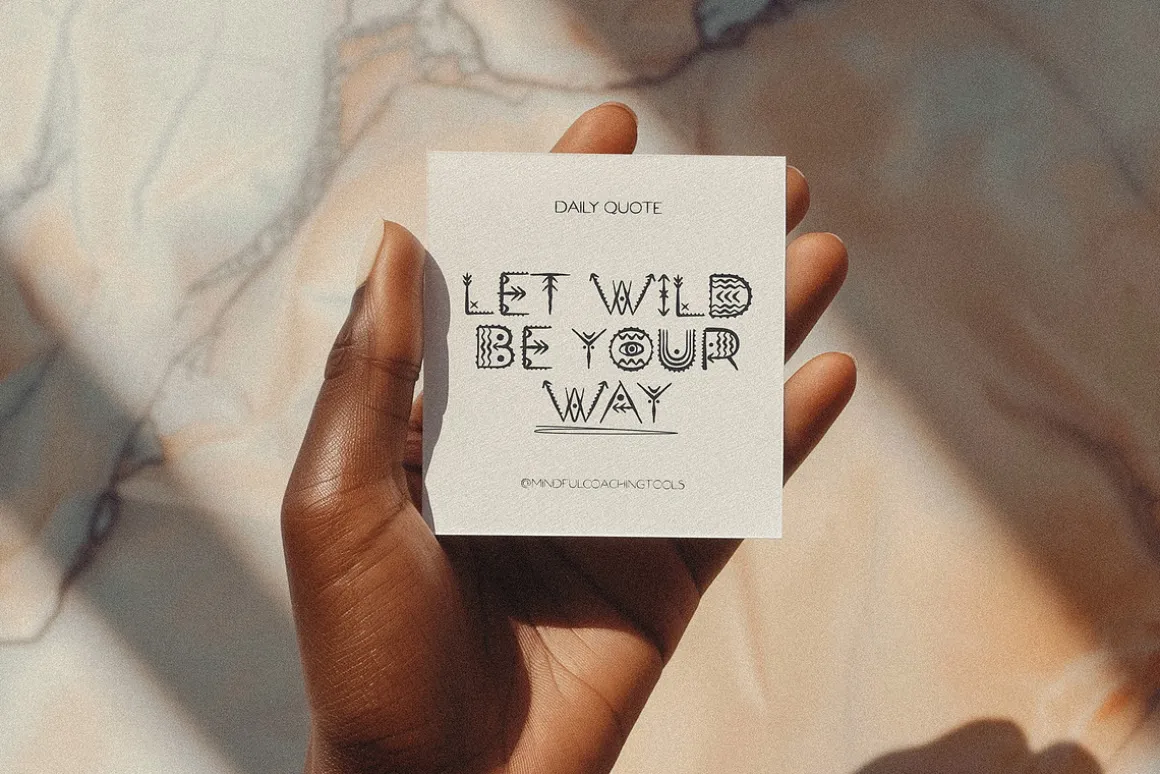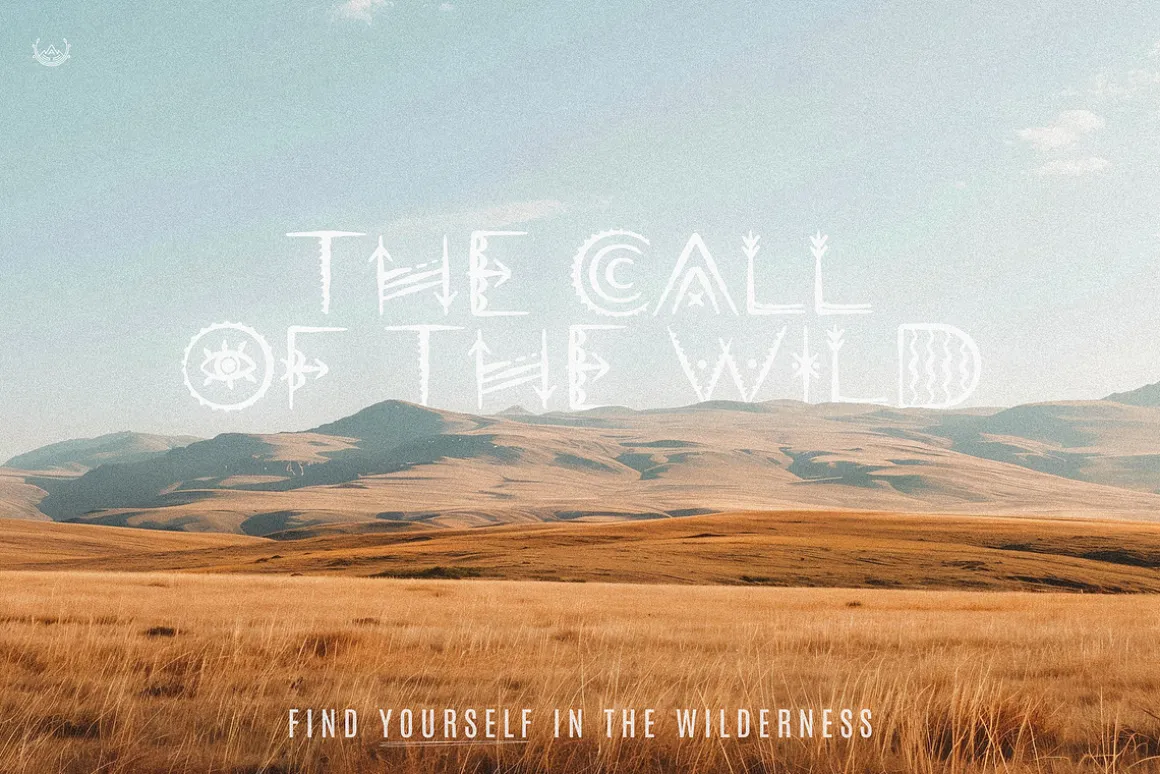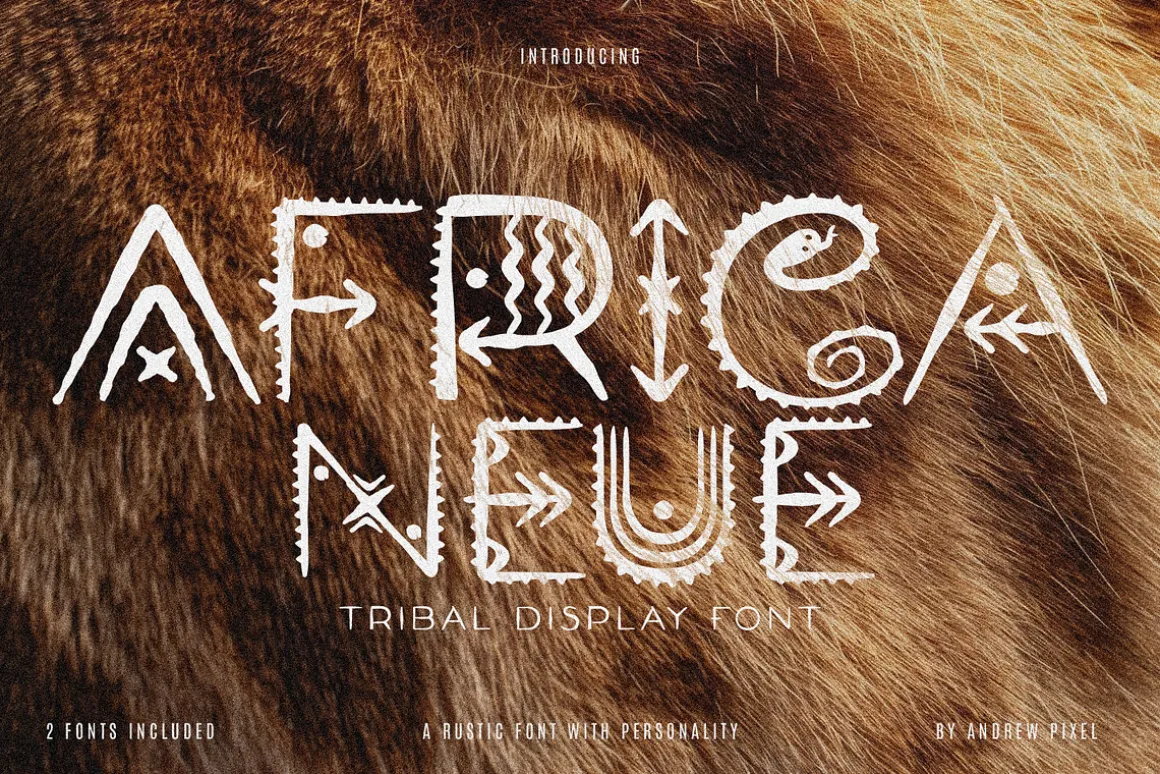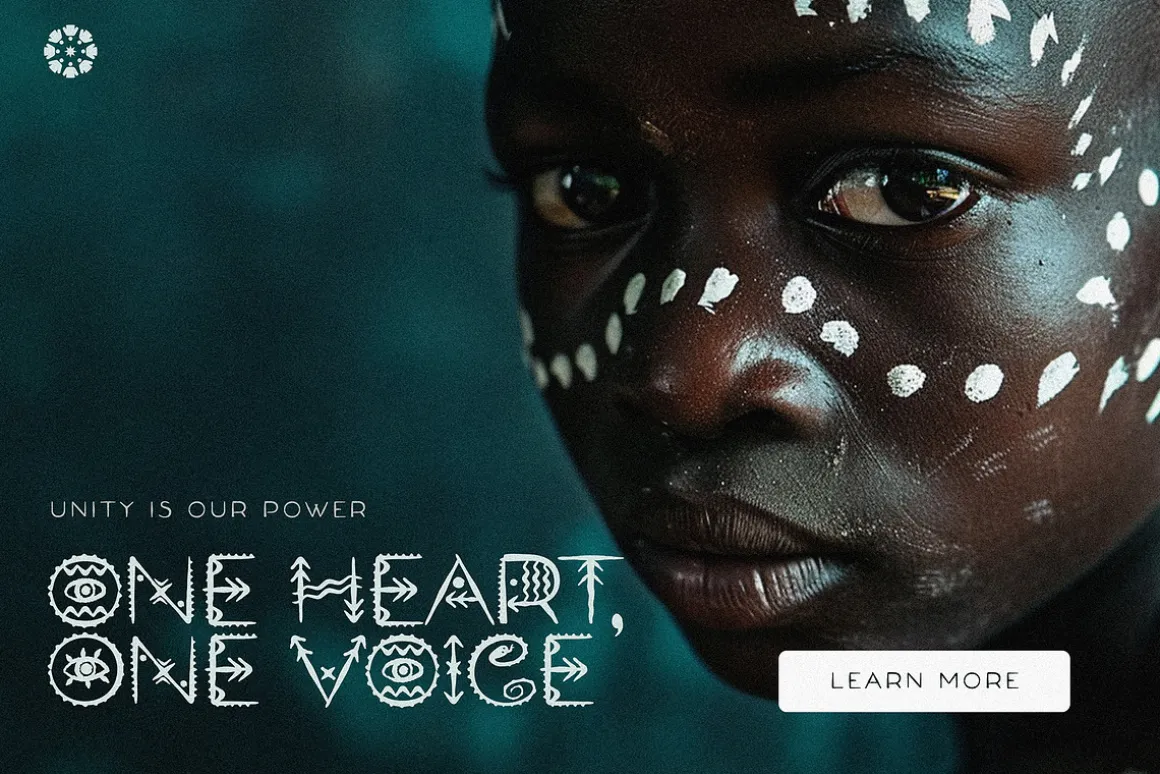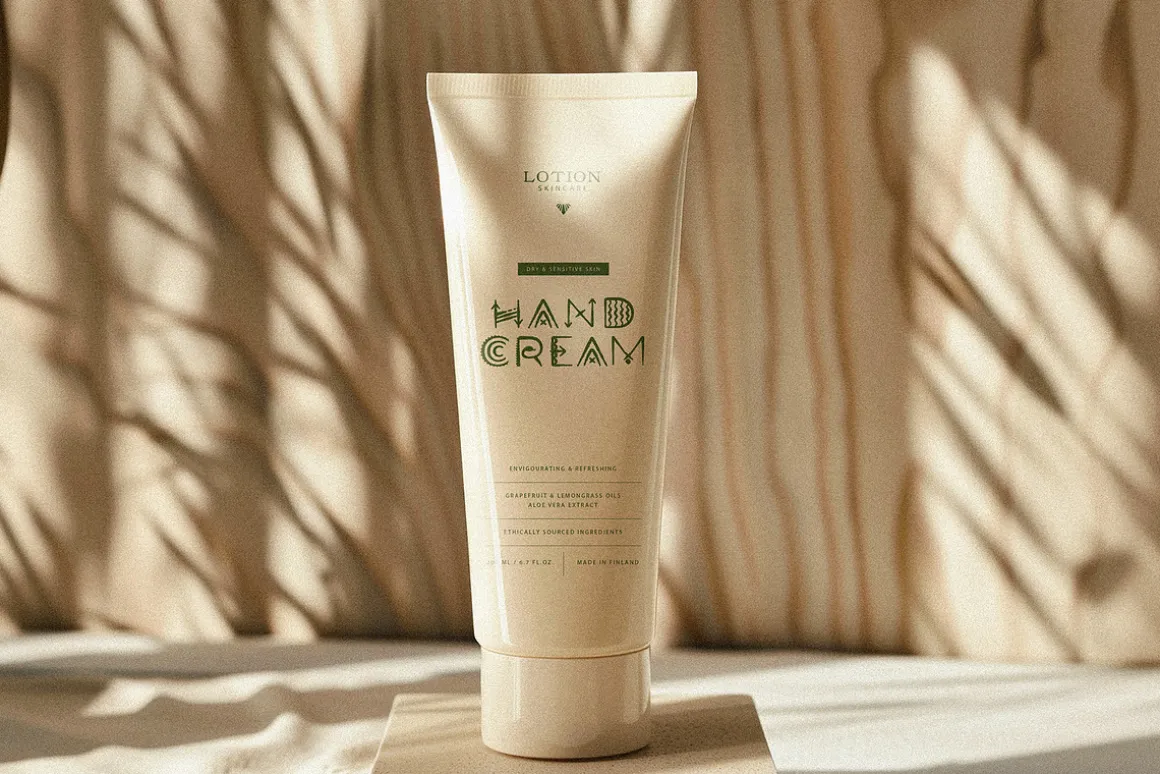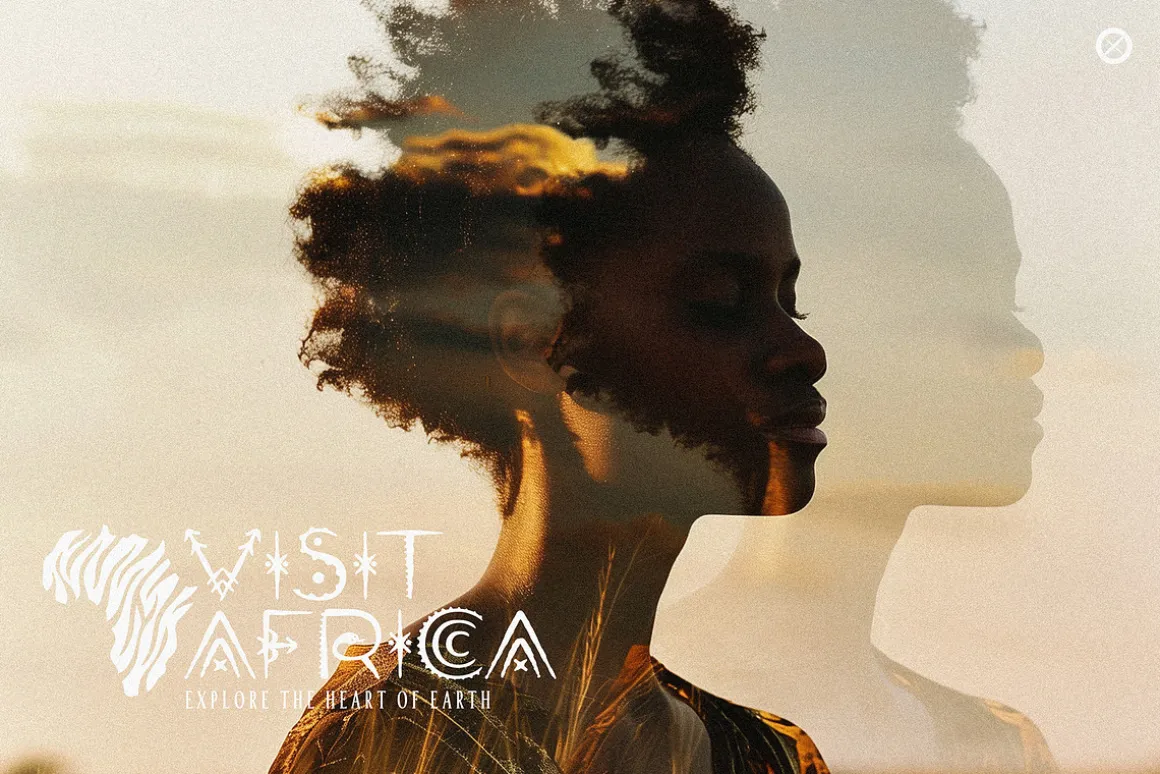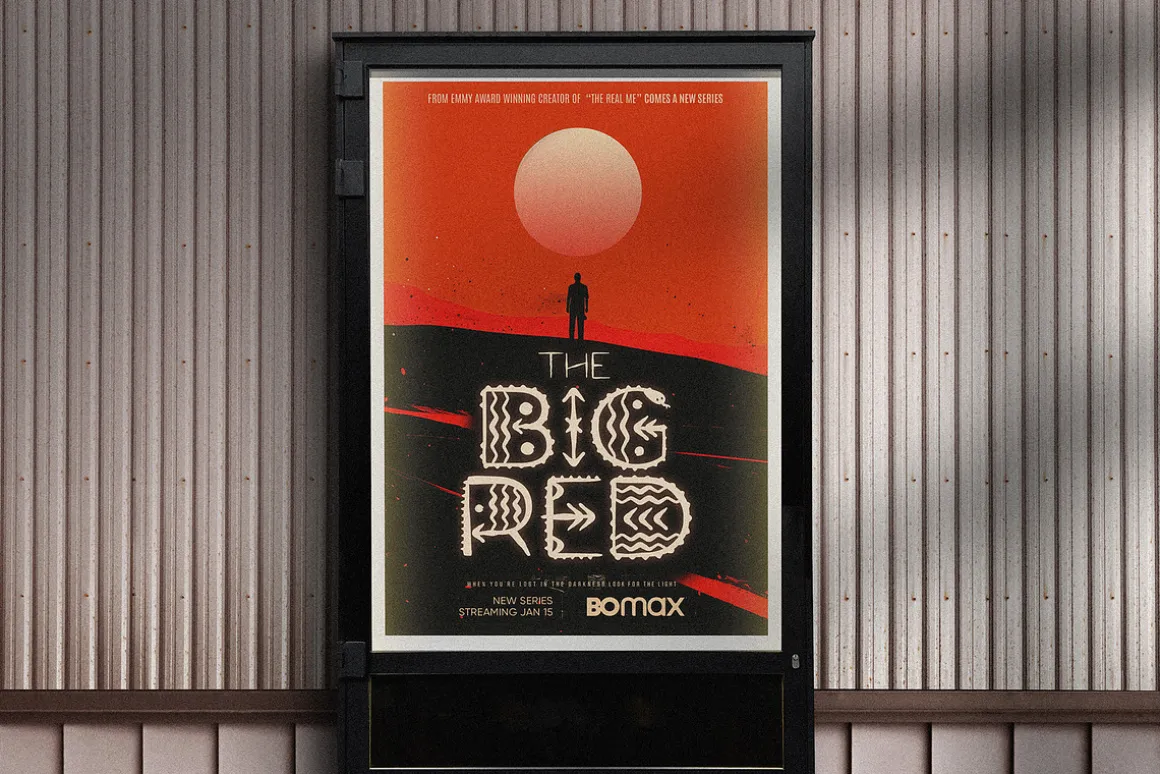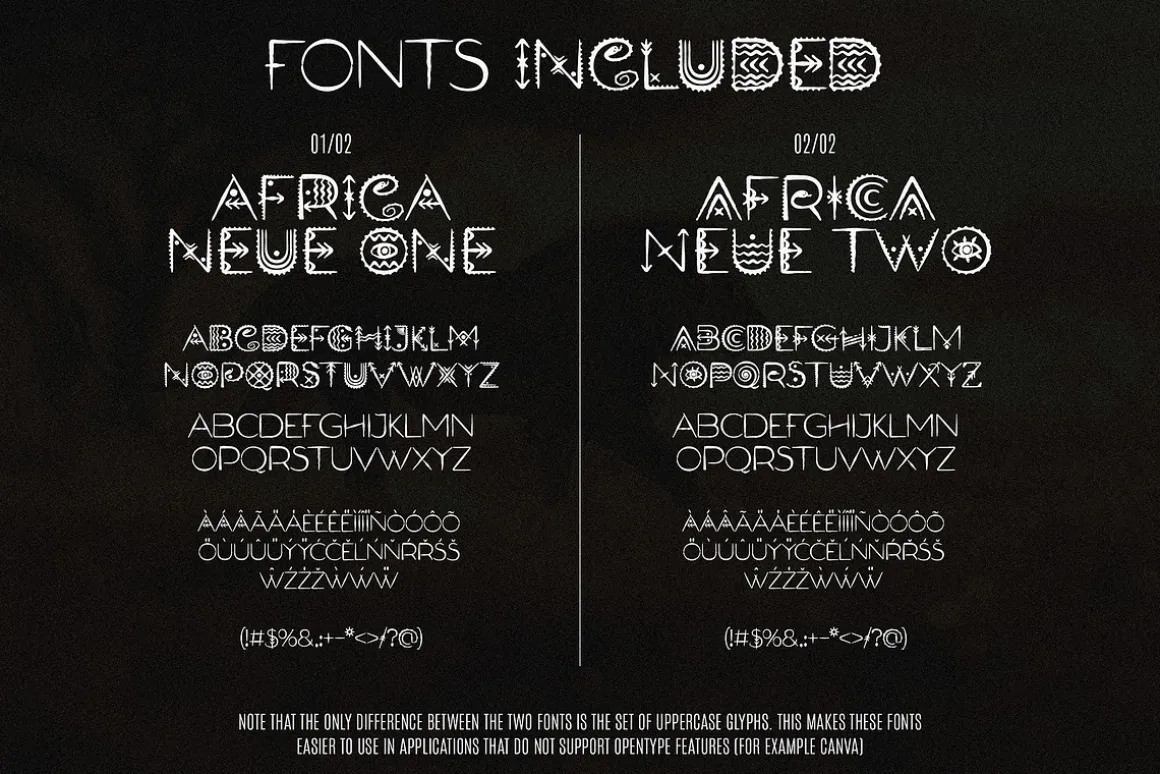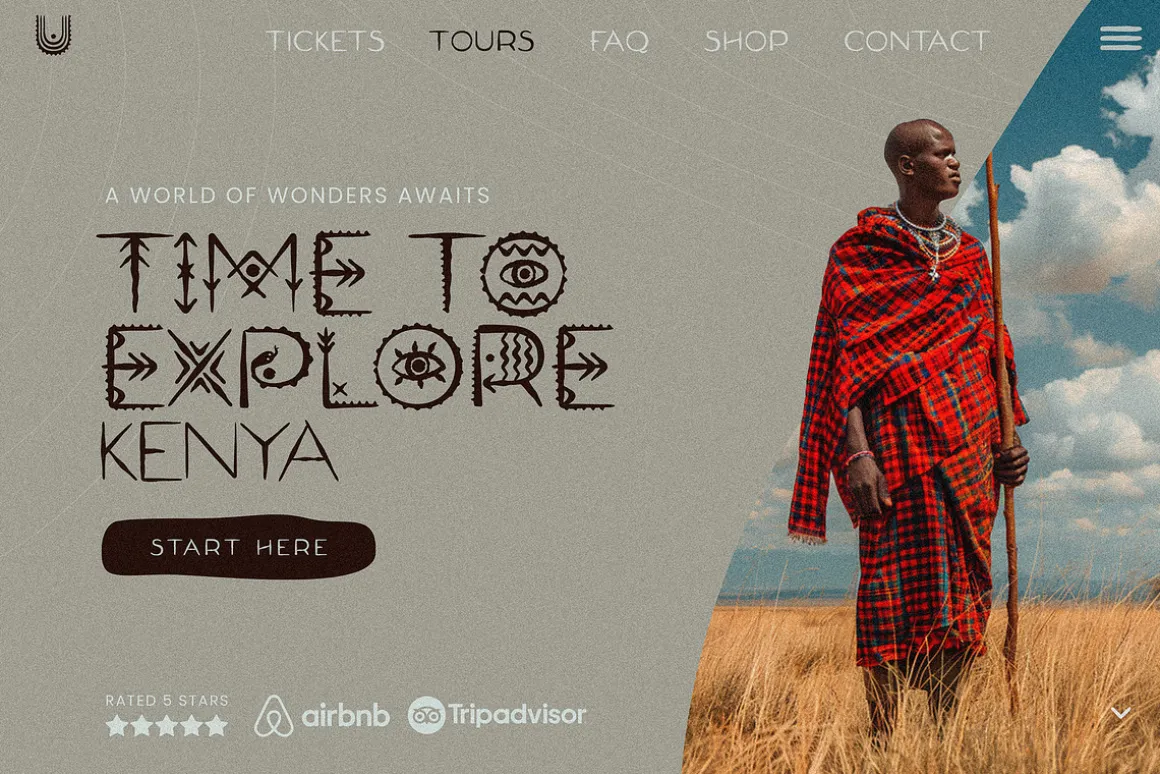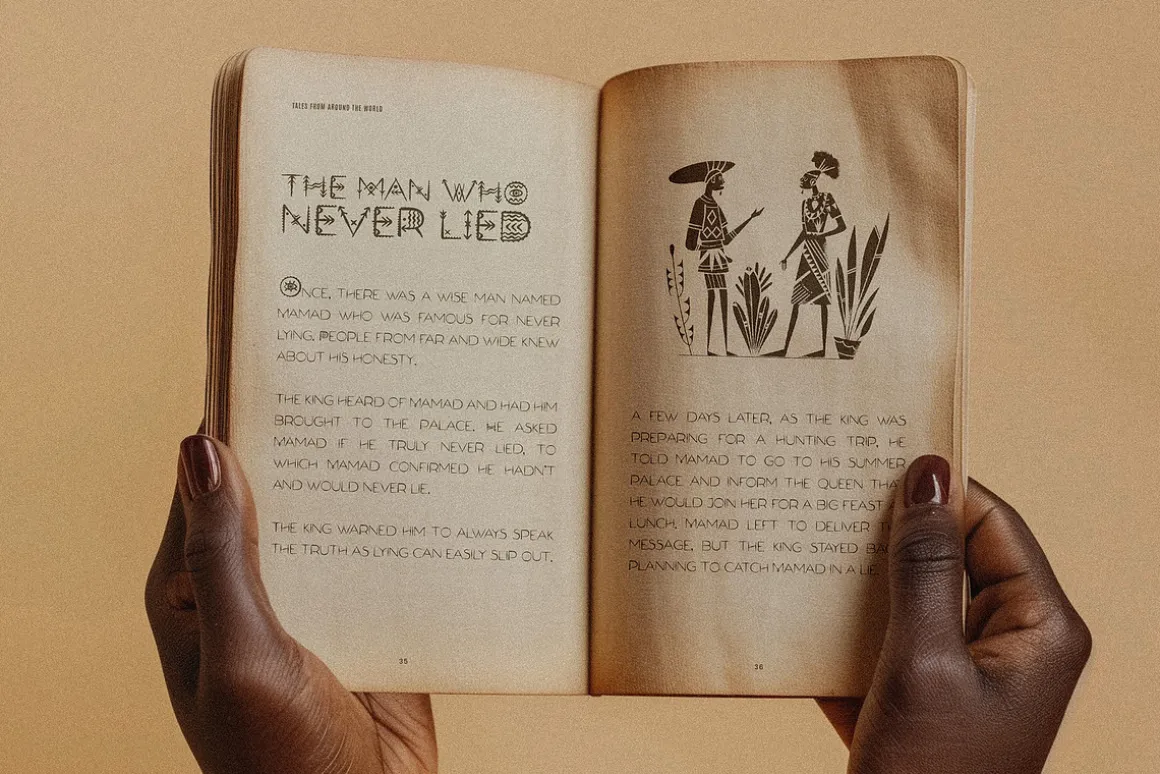
Introducing “Africa Neue,” a rustic tribal display font that embodies the richness of African heritage. This font is meticulously designed to bring a rustic charm to your projects, featuring decorative native embellishments that evoke the artistry and spirit of the continent’s diverse cultures.
Ideal for use in thematic posters, cultural event invitations, and impactful branding projects, “Africa Neue” offers designers a unique way to convey vibrancy and authenticity. Whether you’re creating for a fashion brand, a cultural exposition, or want to add a touch of tribal authenticity to your creative work, “Africa Neue” is for you!
The font has uppercase and lowercase characters, special glyphs, and multilingual support.
Here’s what this font is great for:
- Cultural Event Posters and Flyers,
- Themed Restaurant Menus, Book Covers,
- Documentary Titles,
- T-Shirt Designs,
- Tourism Brochures,
- Album Artwork,
- Art Exhibition Titles,
- Website Headers,
- Marketing materials for cultural workshops,
- Packaging for ethnically inspired products,
- Signage for cultural heritage sites,
- Branding for tourism companies
- Postcards from travel destinations
- Motivational Quote Cards
- And More
Note that the only difference between the two fonts is the set of uppercase glyphs. This makes these fonts easier to use in applications that do not support Opentype features (for example Canva)